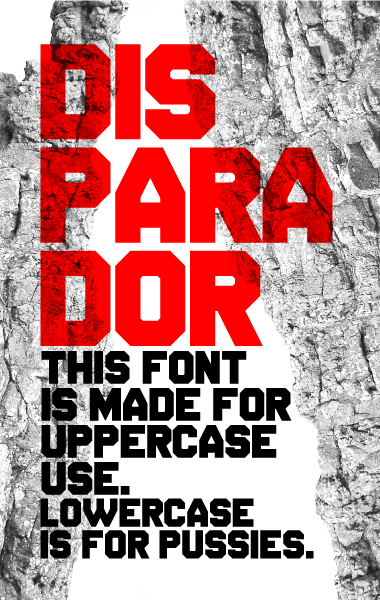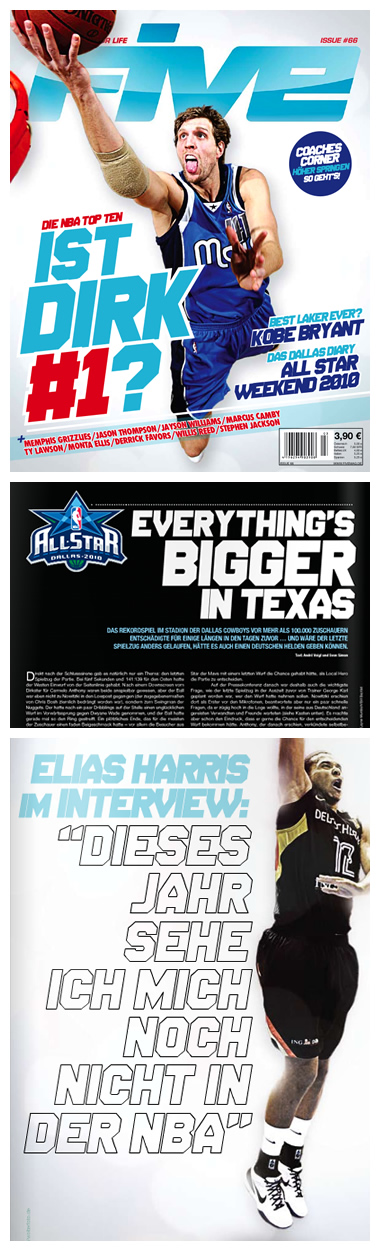
i actually only did the lowercase because i don't like that fontstruct logo showing for lacking characters, and because i thought it would be lame to just copy the uppercase on the lowercase... i think this is more of a punchy uppercase font for flyers, posters, and so on... hope you like it!
lol
Nice work, shasta! Really solid.
Good font, awesome sample.
Excellent stuff.
Congratulations! FontStruct Staff have deemed your FontStruction worthy of special mention. “Disparador” is now a Top Pick.
Solid no-nonsense heavy-duty CAPS.
I like the lowercase too. Maybe 't' and 'f' could be a bit wider?
And how about a "Disparador Stencil"? :-)
@gustavo: yep, you're right about f and t... they're wider now. and as for the stencil version: good idea, here you go...
Great.
Disparador is used as a cover and headline font in and on the current issue of Five, a german basketball magazine... Probably the most prominent use of one of my fonts so far! Yay! :)
A heavy font with a familiar look. I would agree with your punchline in this case (on the firs demo pic), though your lower case has nothing to be ashamed of. Congratulations for your FIVE cover. 10/10
Nice one - congratulations :)
Congratulations, Shasta! That's great to see. Thanks for sharing.
Hmmm...another Sports/FontStruct connection.